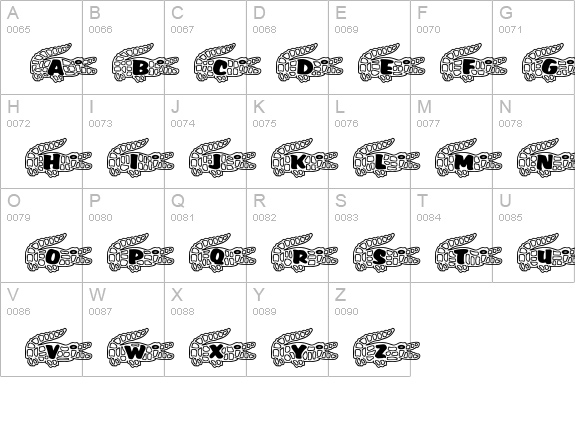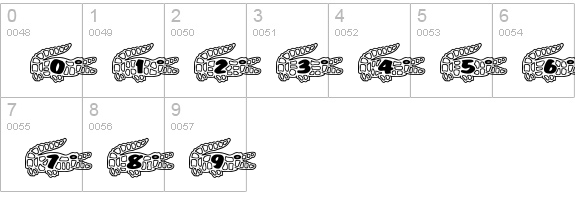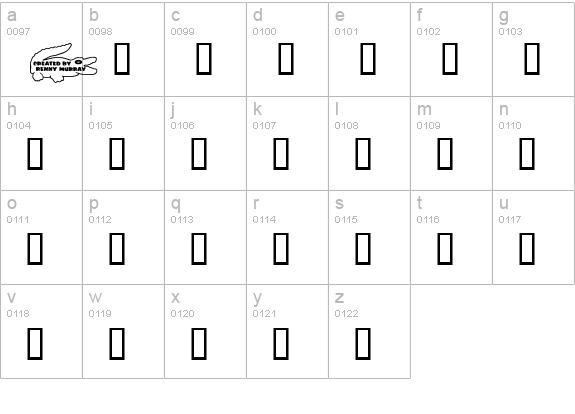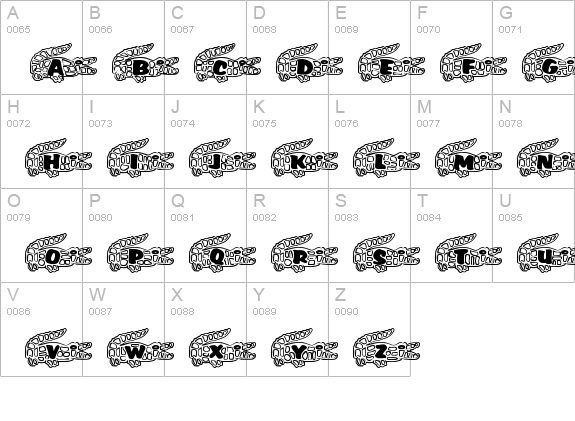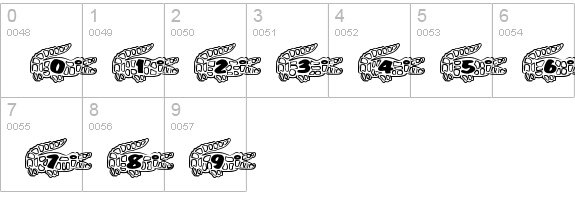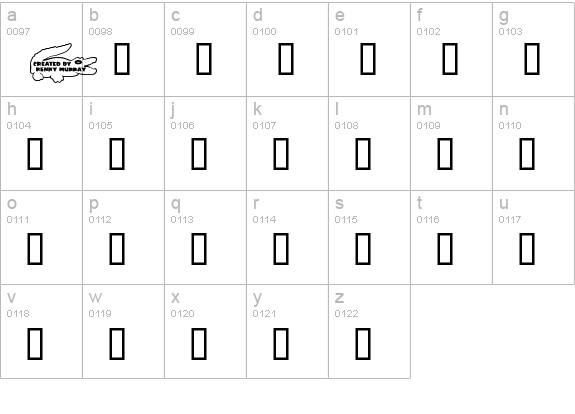
RMGator Font Details
Introducing the captivating RMGator font, a versatile typeface that effortlessly combines modern sophistication with a touch of playfulness. This unique font features bold, eye-catching letterforms that are sure to make a statement in any design project. With its sleek lines and distinctive style, RMGator is perfect for branding, logos, headlines, and more. What sets RMGator apart is not only its striking aesthetic, but also its accessibility. This font is available for free download at FontsMarket.com, making it a valuable addition to any designer's toolkit. Whether you're working on a professional project or a personal endeavor, RMGator offers endless possibilities for creativity and expression. Embrace the power of RMGator and elevate your designs to new heights. Download this exceptional font today and unleash your imagination with its bold and dynamic presence. Let RMGator be the key to unlocking your design potential and making a lasting impression on your audience.